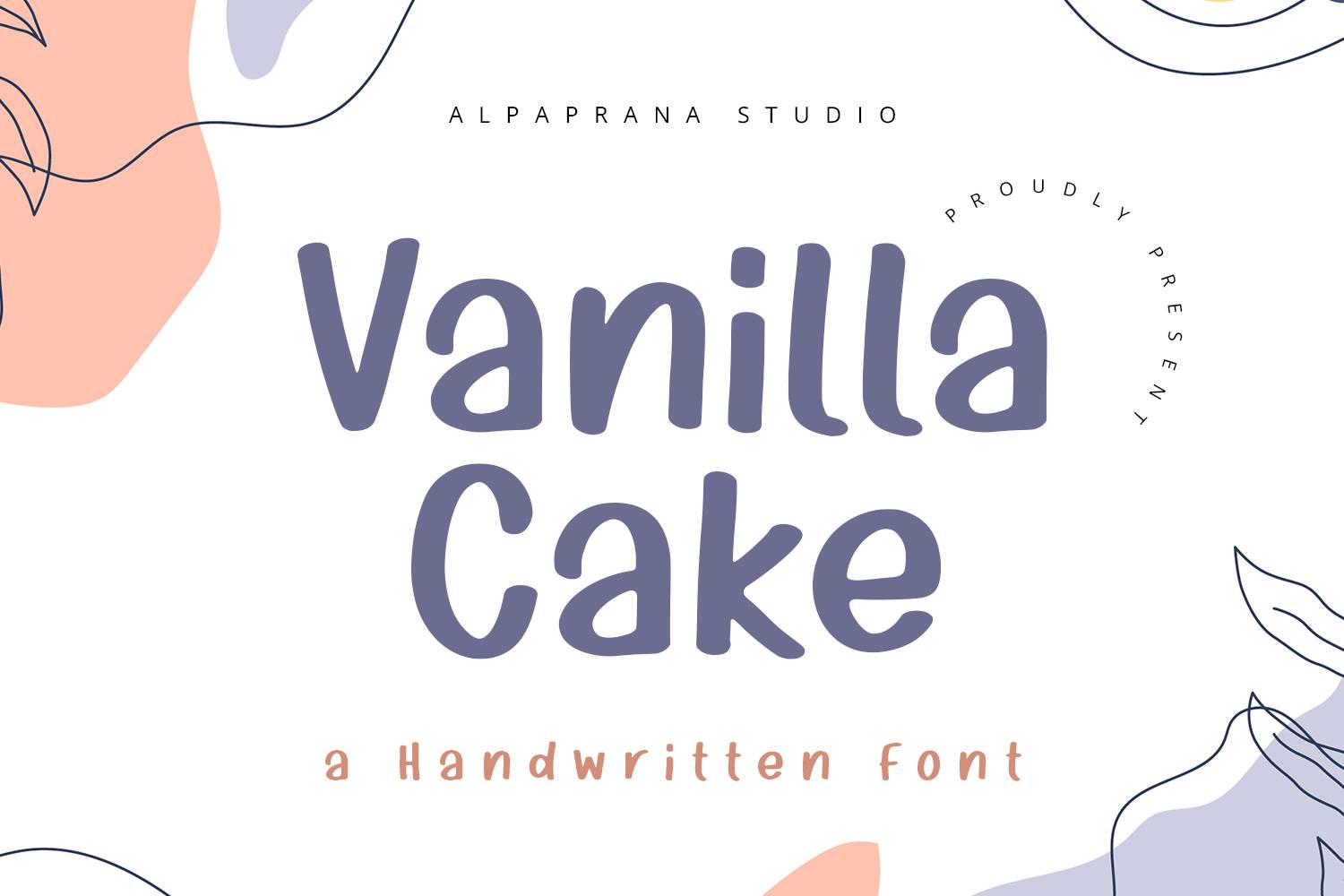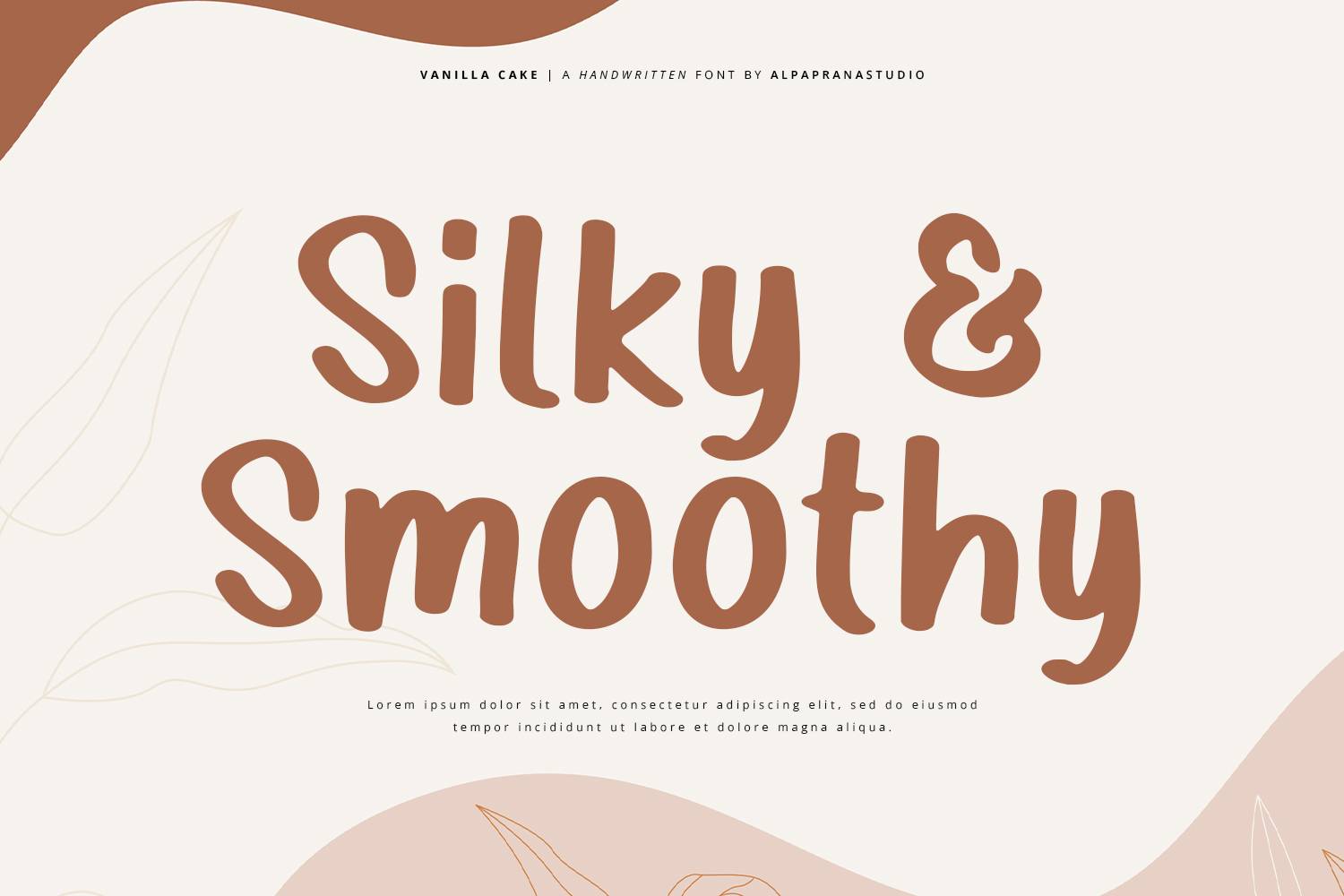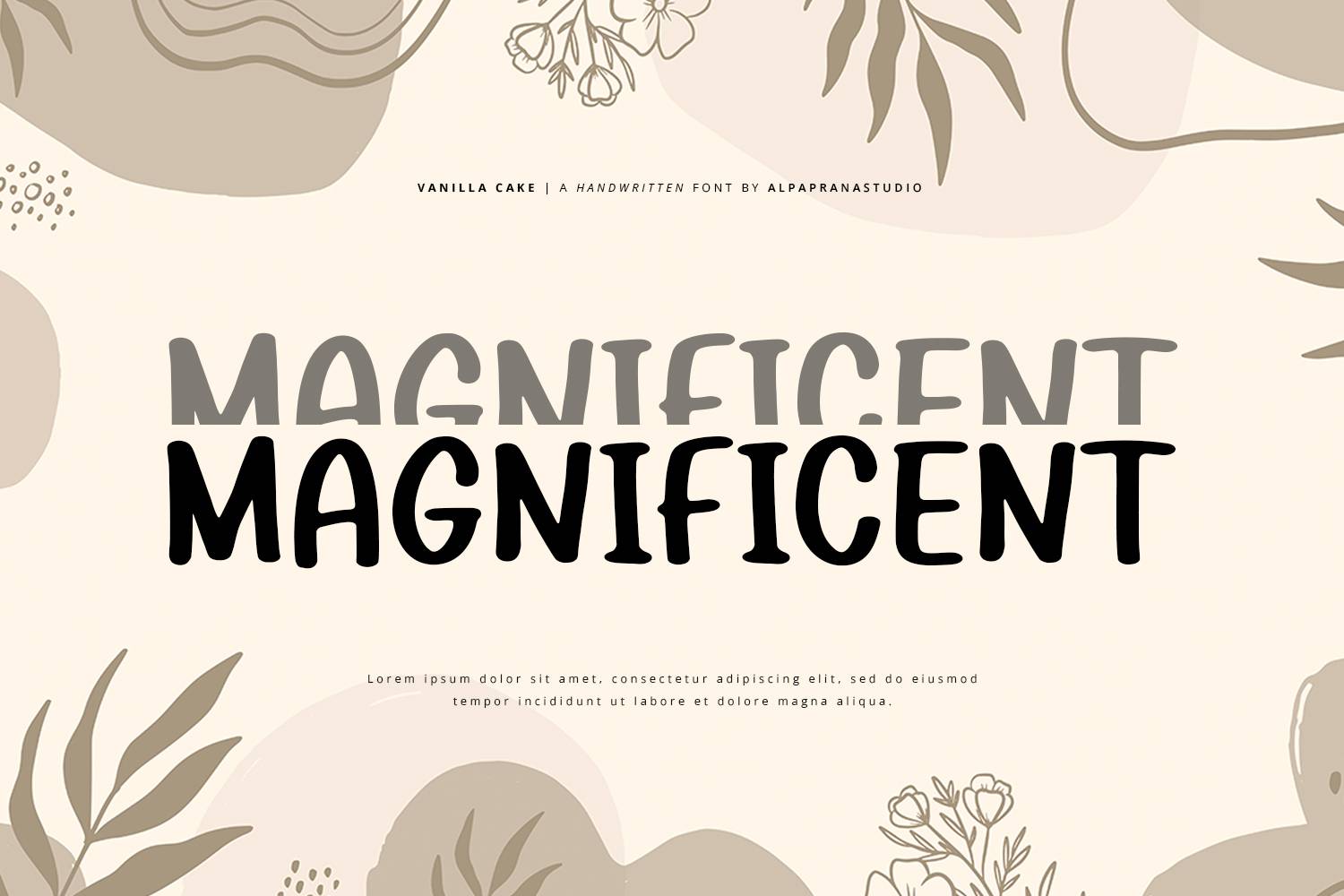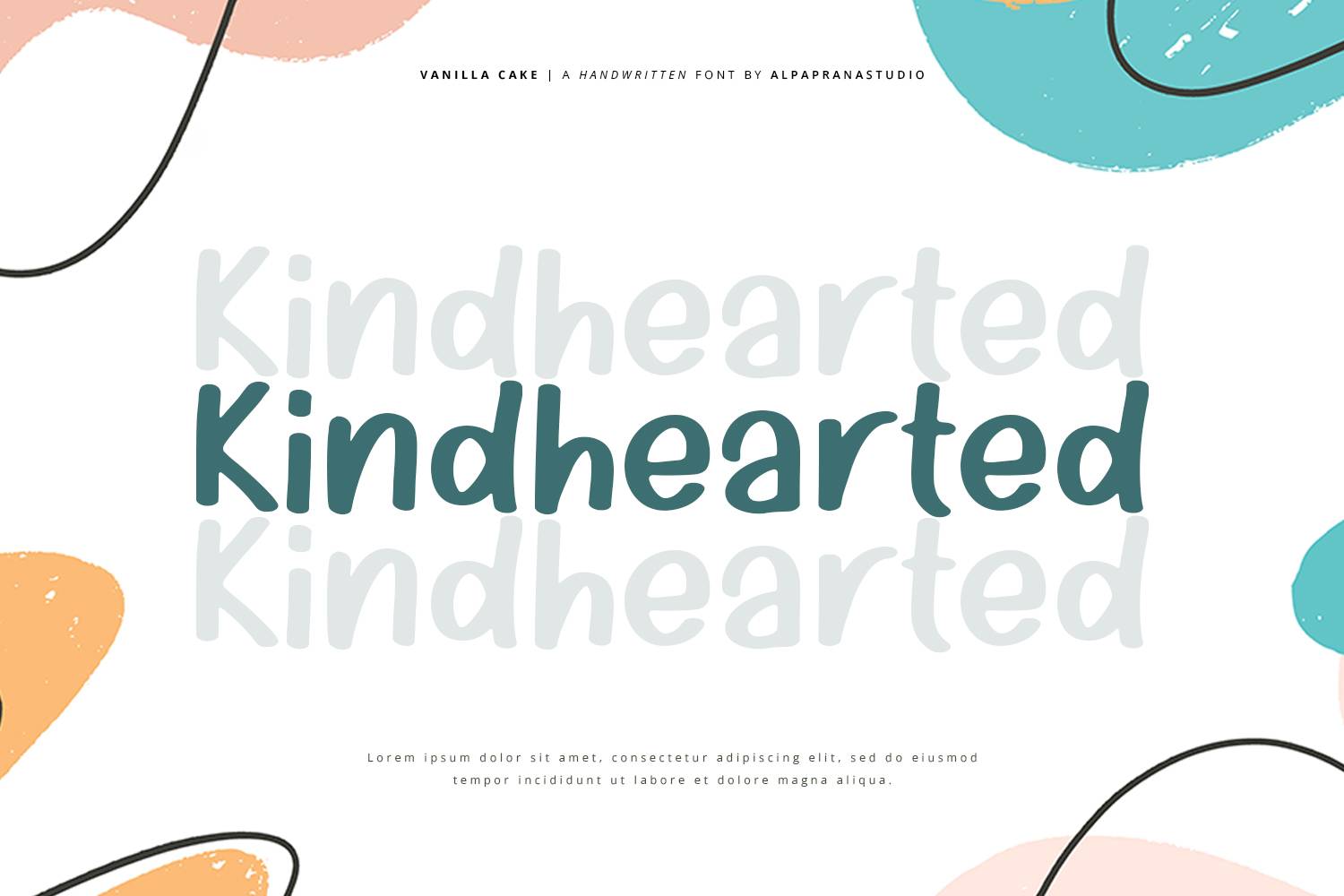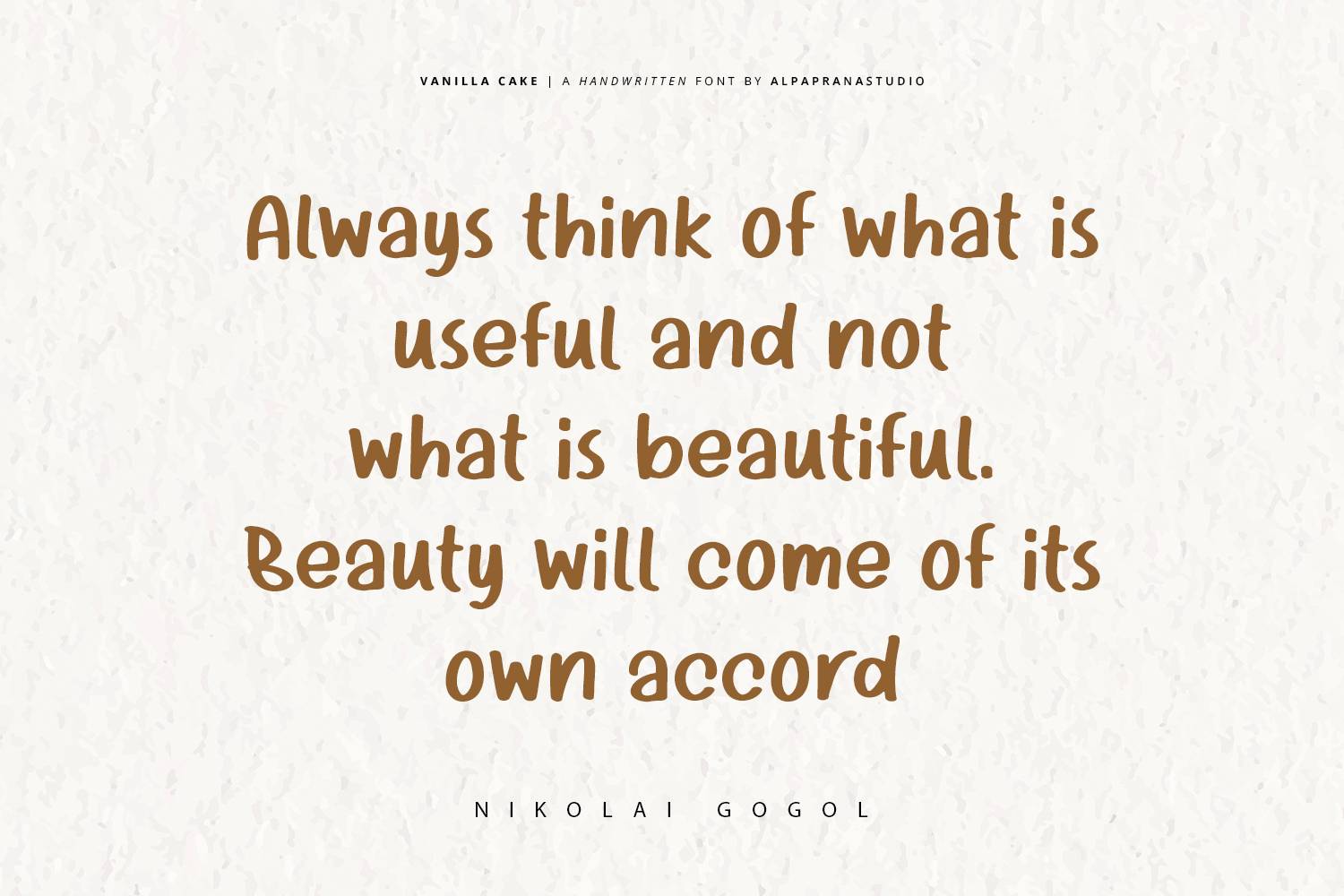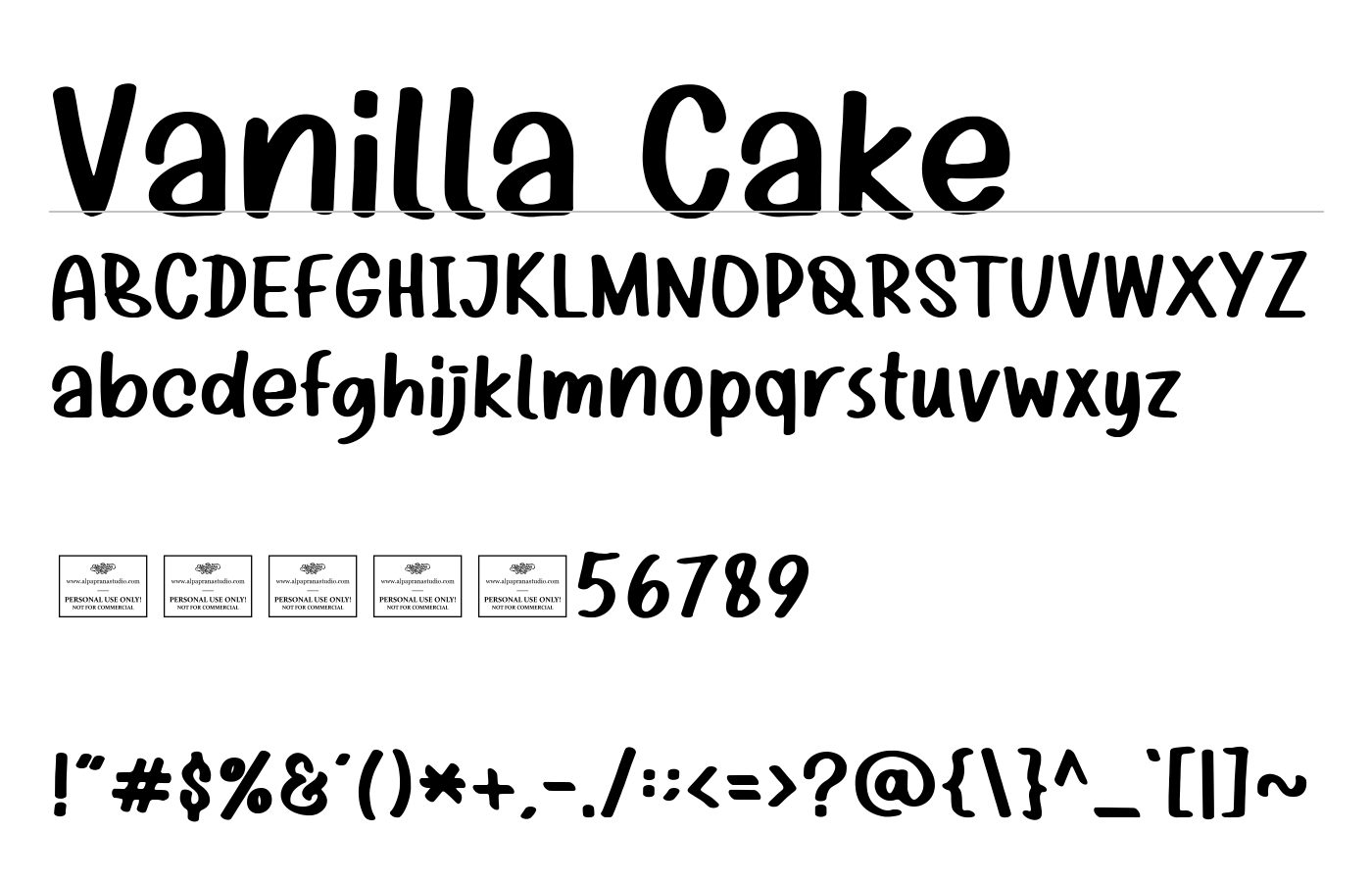
Vanilla Cake is a playful and casual sans serif font with a hand-drawn feel, featuring rounded strokes and a lively, uneven baseline that adds personality and warmth. Its medium weight and open letterforms make it highly legible and friendly, perfect for informal branding, children's books, playful packaging, and creative headlines that need a welcoming, approachable vibe. This font works well where a touch of joy and charm is desired without sacrificing clarity.
Vanilla Cake Font
About Vanilla Cake Font